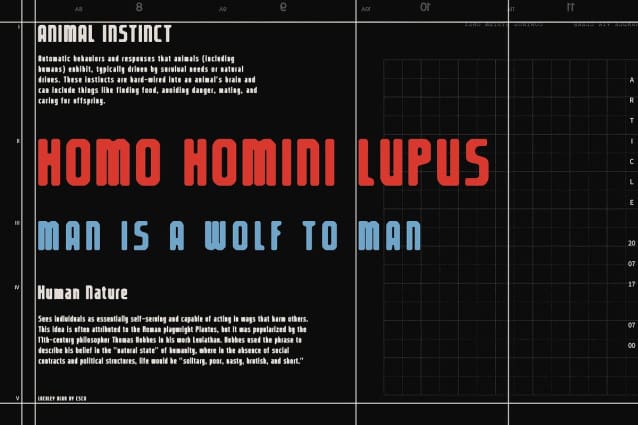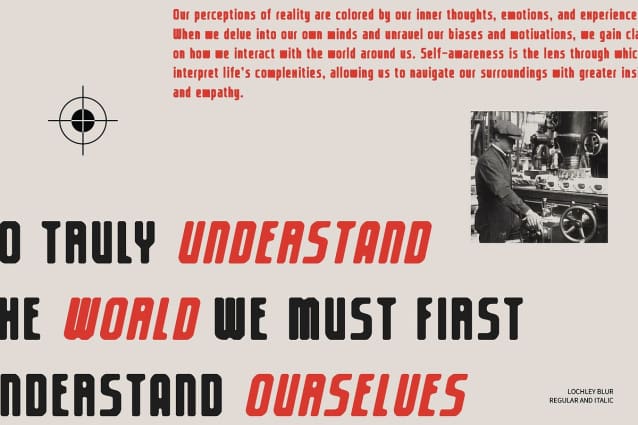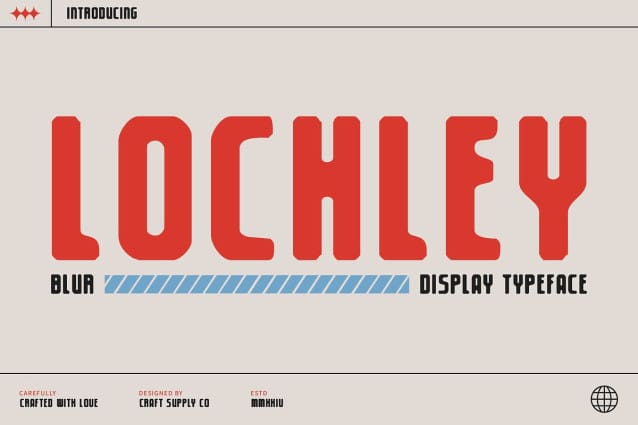
Lochley Blur Font
Lochley Blur Font is a sans-serif font characterized by its bold and condensed design, making it perfect for automotive and similar applications. Its robust, compact form ensures maximum visibility, ideal for high-impact settings.
Tech-Inspired Futuristic Style Featuring a tech-inspired futuristic style, Lochley Blur merges modern aesthetics with dynamic blur effects. This combination delivers a strong and contemporary appearance, reflecting innovation and sophistication.
Blur Effect for Contemporary Dimension The blur effect introduces a contemporary dimension, adding a sleek and modern touch to the font. This feature enhances its visual appeal, making it stand out in tech-focused applications and branding.
Ideal for High-Tech Applications and Branding Lochley Blur excels in high-tech applications and branding that demands an innovative and sophisticated impression. Its bold, condensed design and futuristic blur effects make it an ideal choice for projects requiring a modern and striking look.
Perfect for Innovative and Sophisticated Designs Whether for automotive branding or tech-oriented graphics, Lochley Blur offers a powerful and sophisticated visual presence. Its blend of boldness and blur ensures your designs make a dynamic, cutting-edge statement.